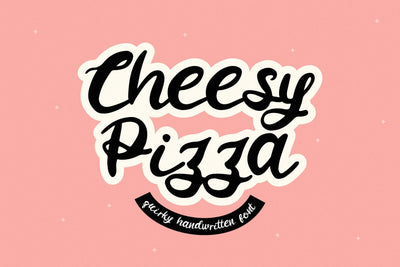
Cheesy Pizza - a Lovely Handwritten Font
Cheesy Pizza is a cute, funny, sweet handwritten font. Clean and soft, this font is the perfect fit for all of your crafty DIY projects, cricut, logos, branding, social media, etc.